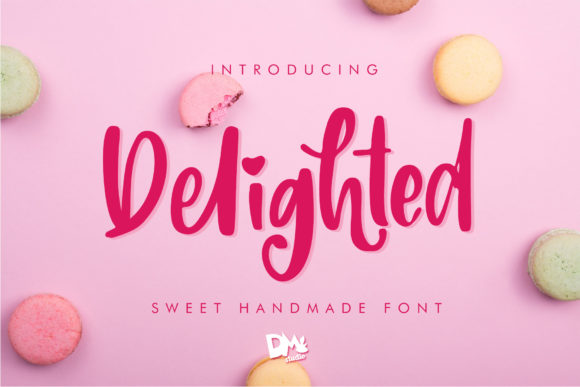
In an era where design and personalization reign supreme, let Delighted Font ignite your creativity with its charming and captivating brush script brilliance.
Introducing Delighted, a font family that's a true celebration of individuality, artistic flair, and sheer delight. Created by the renowned font designer, dmletter31, Delighted effortlessly combines the playfulness of a handwritten script with the elegance of a modern font, birthing a visual masterpiece that will transform your creative projects into unforgettable expressions of art.
With its whimsical loops, swashes, and artful imperfections, Delighted captures the essence of joy and exuberance, adding a touch of enchantment to every design it graces. Whether you're a seasoned graphic designer seeking to elevate your work or a budding artist exploring the world of typography, Delighted is your trusted companion, guiding you on a journey of endless creative possibilities.
Embrace the beauty of Delighted as you craft captivating logos that dance with personality, whimsical invitations that spark curiosity, and marketing materials that leave a lasting impression. Unveil the magic of this script font as you create stunning blog posts, social media graphics that captivate your audience, and eye-catching branding elements that radiate charm and delight.
Delighted's versatility knows no bounds. Its ability to blend seamlessly with a variety of design styles makes it an indispensable tool in the arsenal of any creative professional. Whether your project calls for a touch of whimsy, a dash of sophistication, or an explosion of creativity, Delighted rises to the occasion, delivering excellence in every stroke.
So, embark on a creative odyssey with Delighted, where imagination takes center stage and every project becomes a canvas for your artistic vision. Allow this font to ignite the flame of inspiration within you, transforming ordinary designs into extraordinary works of art that exude joy, captivate hearts, and spread smiles wherever they go.